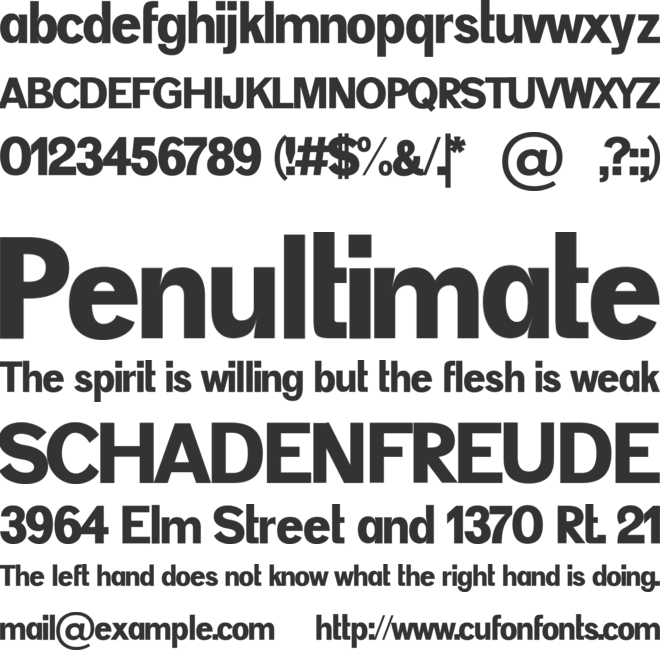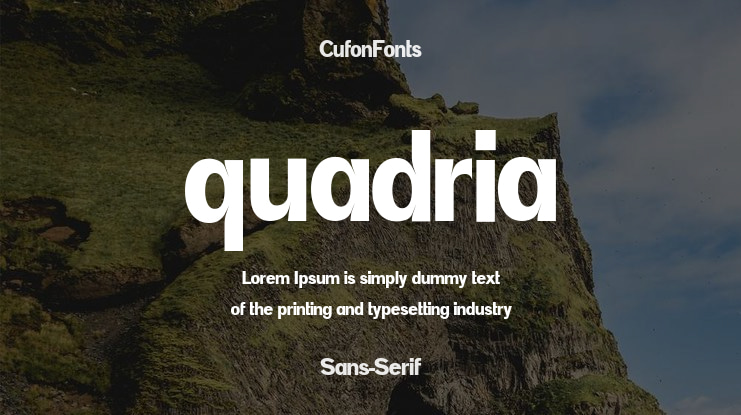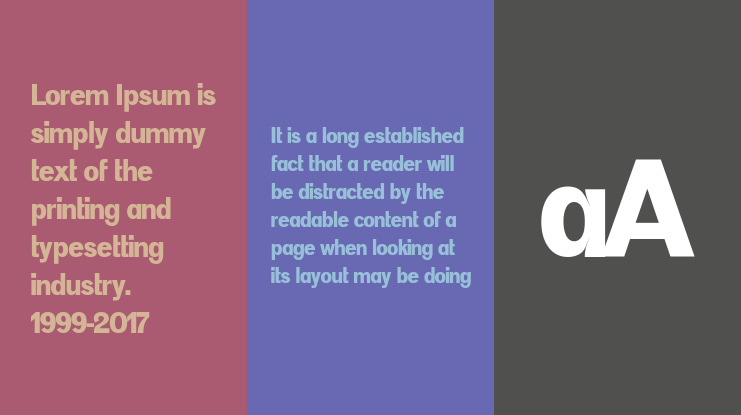
quadria Font Family
🎨 Font Name: QUADRIA by Minimalist Art Studio
🎨 Font description: Quadria is an elegant geometric sans with multilingual support—perfect for luxury branding, editorial layouts, and modern packaging.